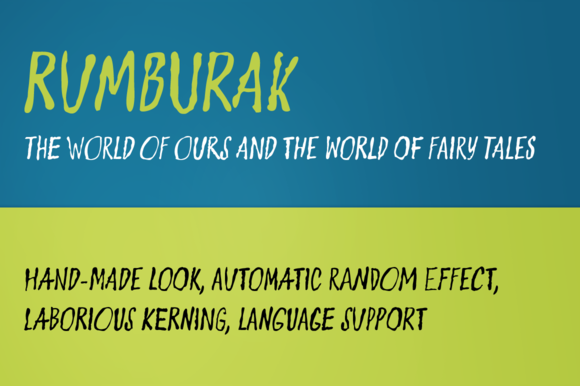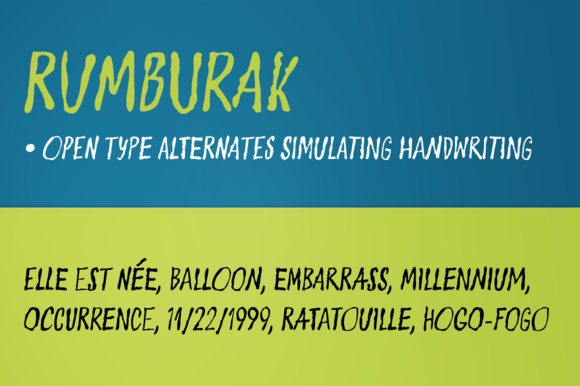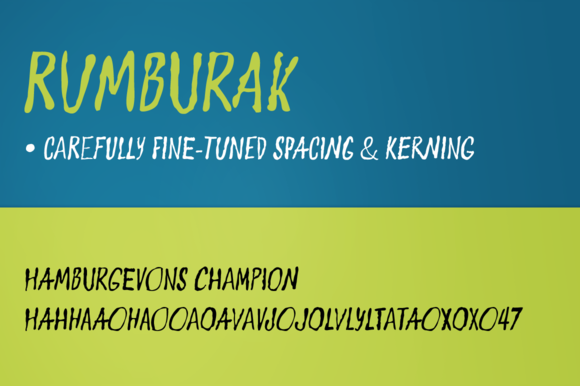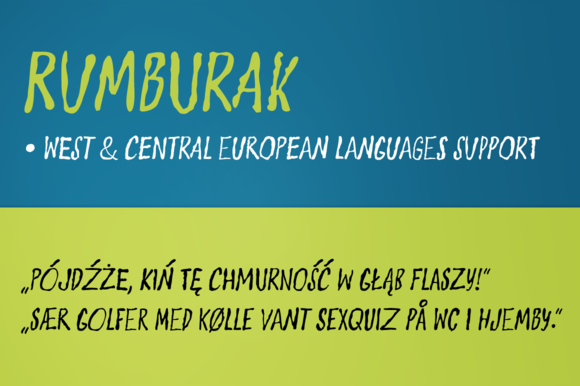
Introduction to Rumburak Font
Remember the magical feeling of watching old Czech movies for children? The colorful characters, the whimsical storylines, and the enchanting titles that seemed to dance on the screen? For designers looking for a unique design resource, the Rumburak Font brings back that same sense of wonder and playfulness.
With its handmade-like appearance and numerous alternates, Rumburak Font simulates the feel of live handwriting. This high-quality font is perfect for designers working on creative projects that require a touch of personality and whimsy. Whether you’re designing a children’s book, a website for a family-friendly brand, or a promotional material for a fun event, Rumburak Font is a valuable addition to your design arsenal.
Key Features of Rumburak Font
- Rumburak Font is a high-quality, free design resource perfect for creative projects that require a unique touch.
- This versatile font comes with a transparent background, making it easy to integrate into any design.
- Rumburak Font features a unique, hand-drawn design with intricate details, making it ideal for creative projects that require a personal touch.
- The font is available in a single weight, with a font size range of 12-72 points, making it suitable for various design applications.
- Rumburak Font has a resolution of 300 DPI, ensuring high-quality output when used in print or digital designs.
- This free download is perfect for designers, artists, and creatives who want to add a touch of elegance and sophistication to their projects.
Honest Review: Rumburak Font
I recently stumbled upon the Rumburak Font while searching for a unique design resource for my latest creative project. I must say, I was pleasantly surprised by the quality and versatility of this font.
What works well about the Rumburak Font is its high-quality design, which makes it perfect for a variety of creative projects, from graphic design to digital art. The font is available for free download, which is a definite plus. Additionally, the font has a transparent background, making it easy to use on any background image or color scheme.
The Rumburak Font comes with a wide range of characters, including uppercase and lowercase letters, numbers, and punctuation marks. This makes it suitable for a wide range of applications, from body text to headings and titles.
- What works well: ✨ High-quality design, free download, transparent background, wide range of characters
Overall, I’m impressed with the Rumburak Font and would definitely recommend it for personal projects or non-commercial use. With its high-quality design and versatility, it’s a great addition to any designer’s toolkit.
How to Use Rumburak Font
The Rumburak Font is a unique design resource that can elevate your creative project to the next level. With its high quality and transparent background, it’s perfect for designers and artists looking for a distinctive font.
Tips for Getting the Most Out of Rumburak Font
To get the most out of the Rumburak Font, experiment with different font sizes, colors, and styles. You can also use the font in combination with other design elements to create a unique look.
Common Use Cases for Rumburak Font
The Rumburak Font is perfect for creative projects such as branding, logos, and marketing materials. It’s also great for artistic projects such as typography and graphic design.
No, the Rumburak Font does not have a transparent background. It is a solid font with a unique design that can add a creative touch to your projects. If you need a font with a transparent background, you may need to look for a different design resource.